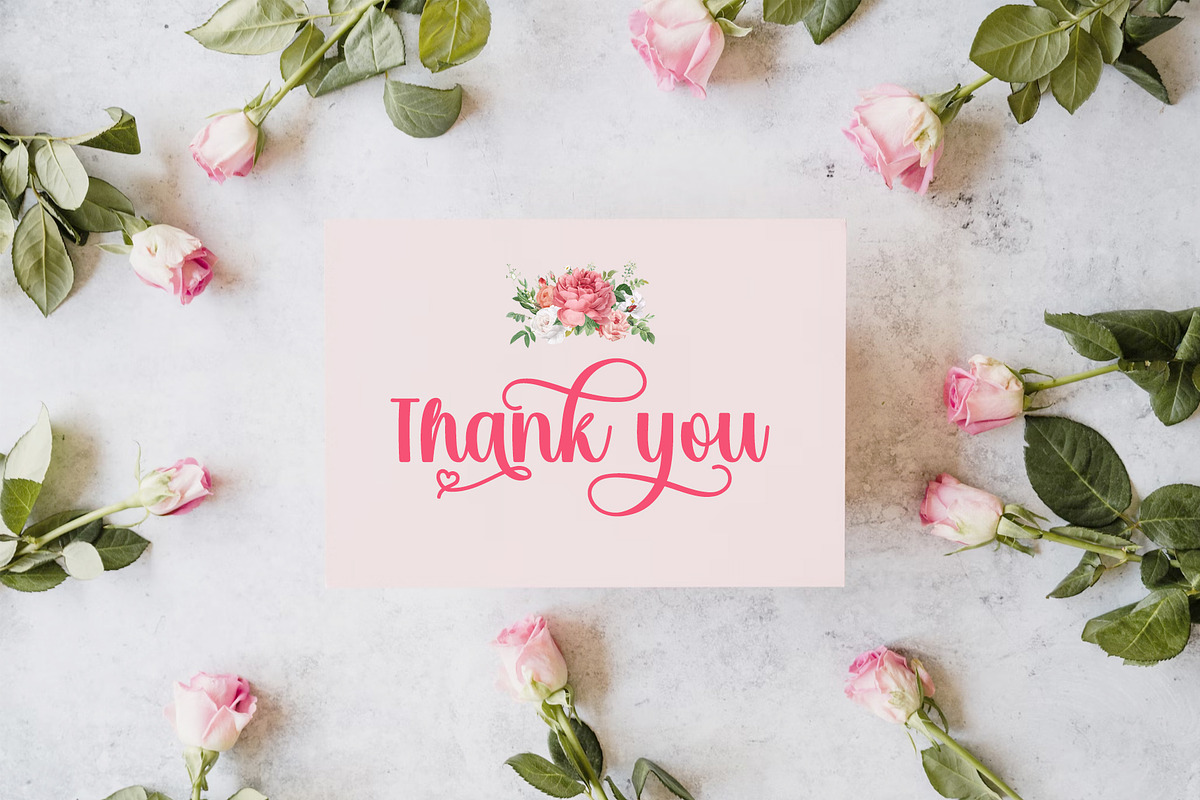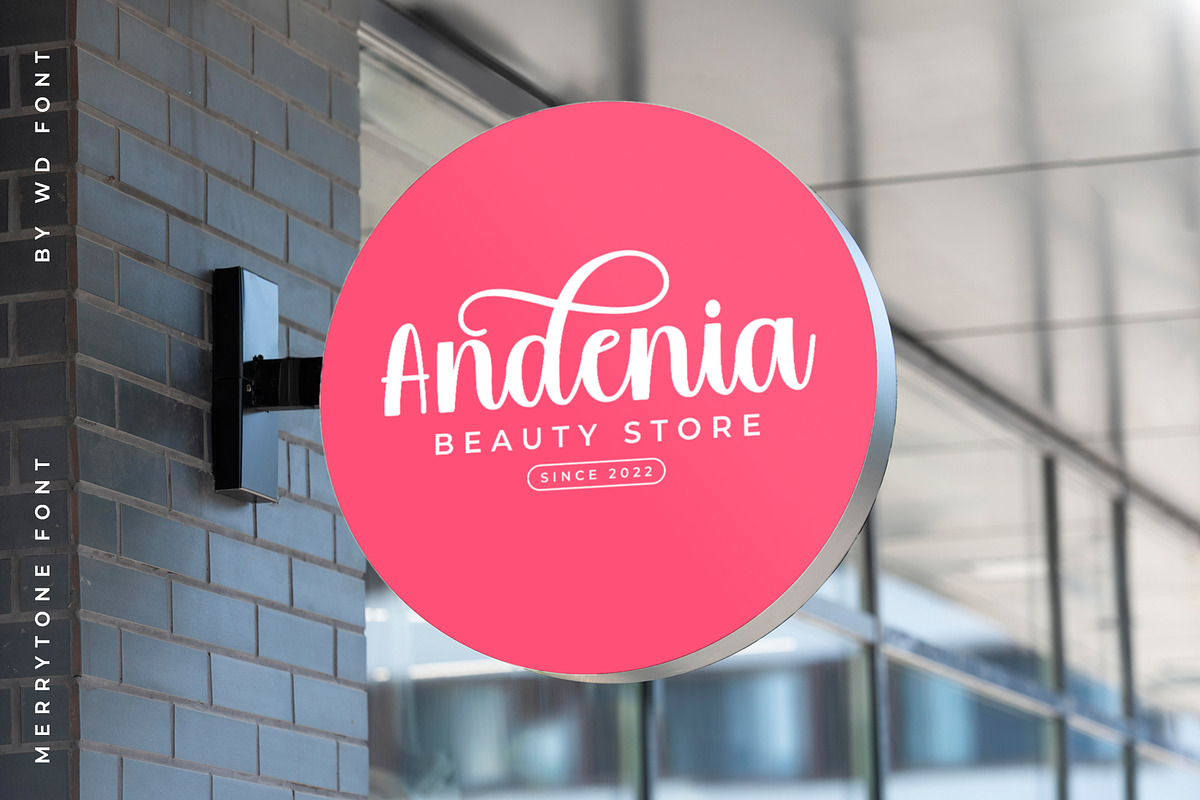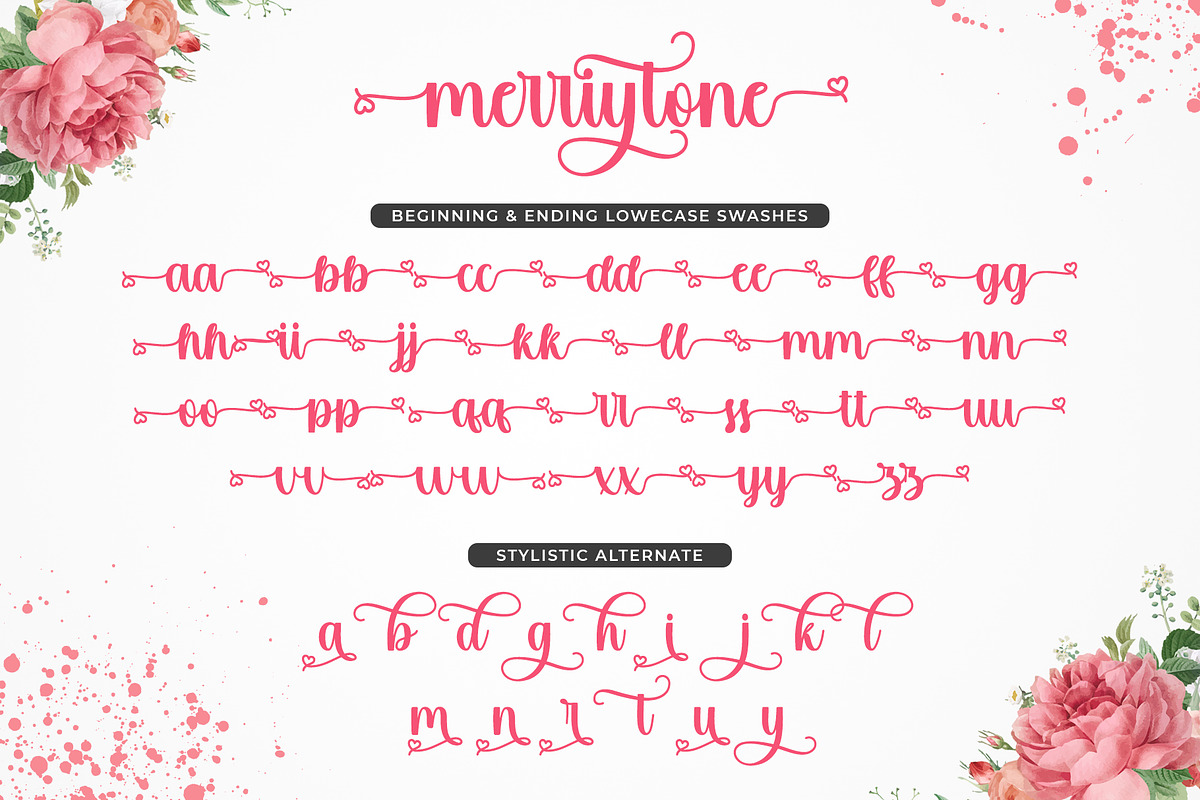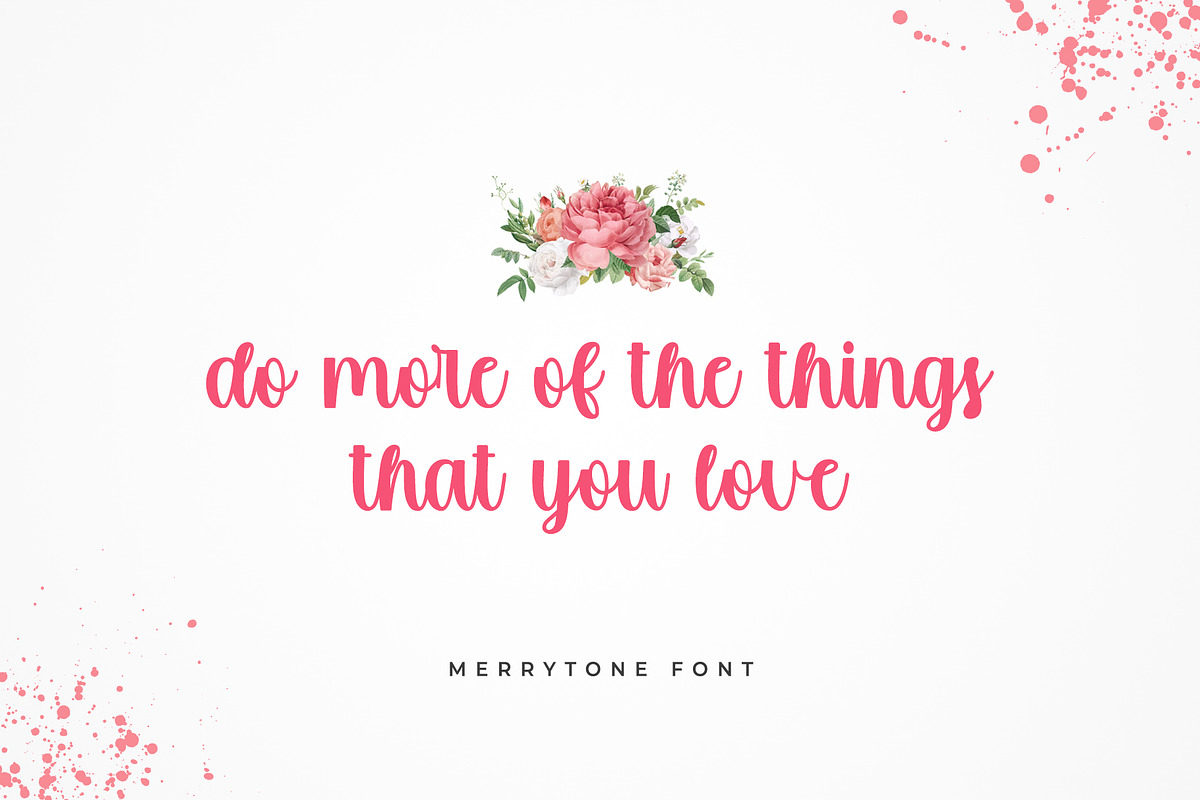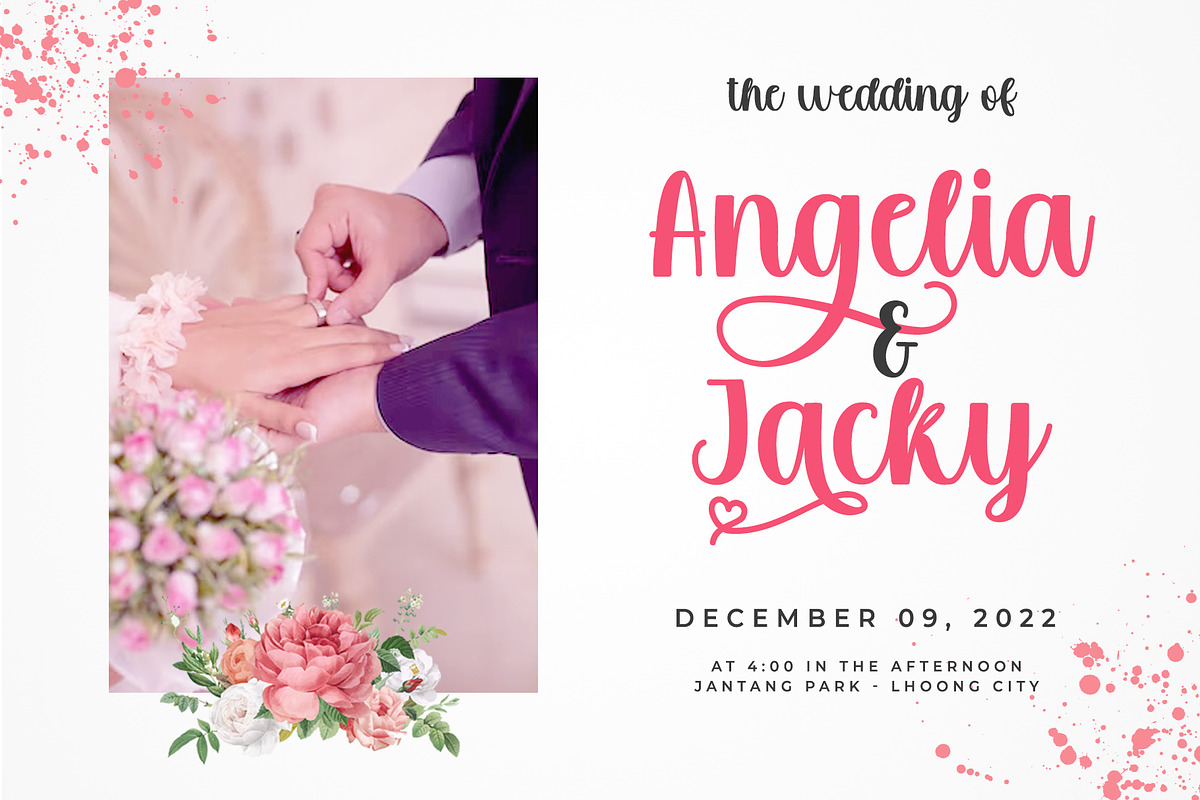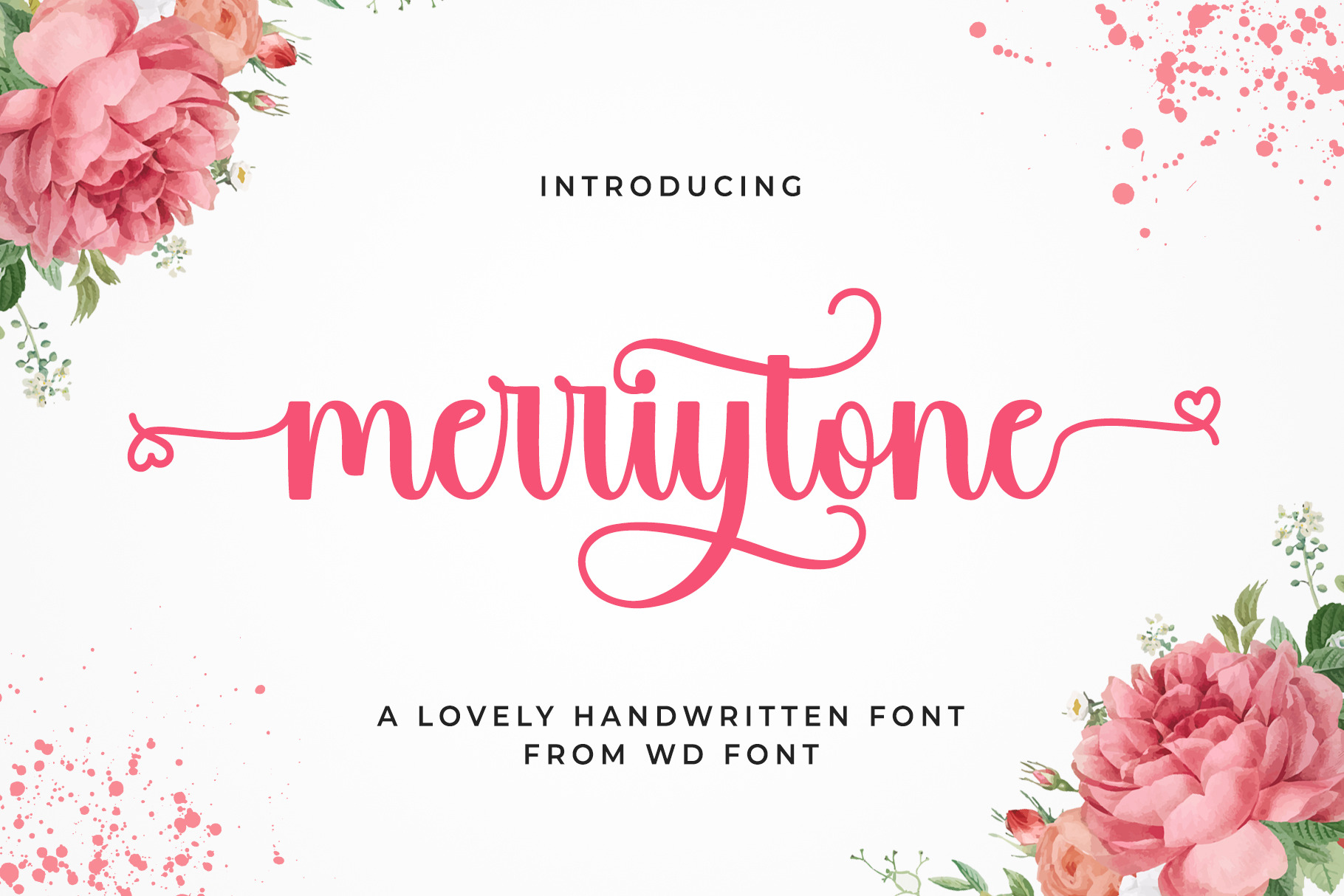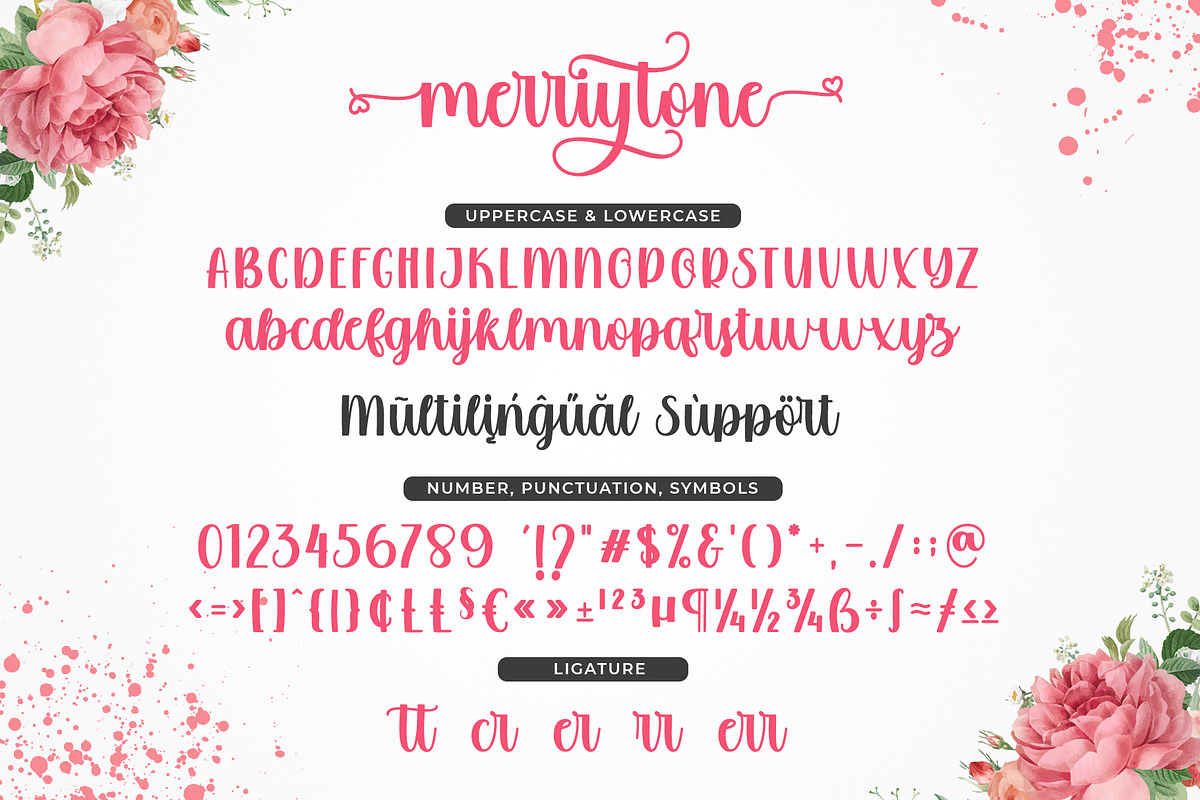
Merrytone | Modern Stylish Font
Merrytone Font is a handwritten font with a modern and elegant shape that looks fresh and pleasing to the eye. This font can be used for many purposes such as wedding invitations, engagement invitations, product displays, clothing writing, fashion and others.